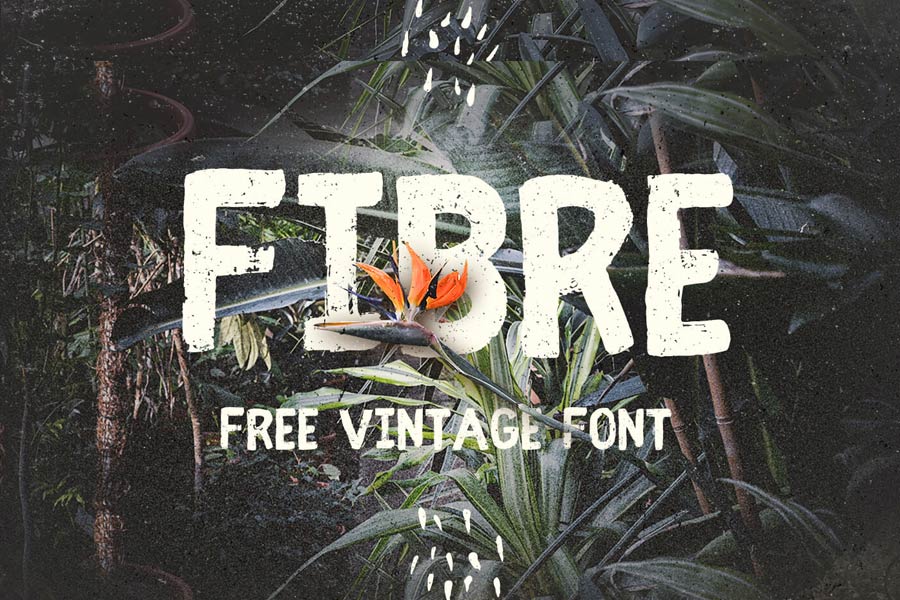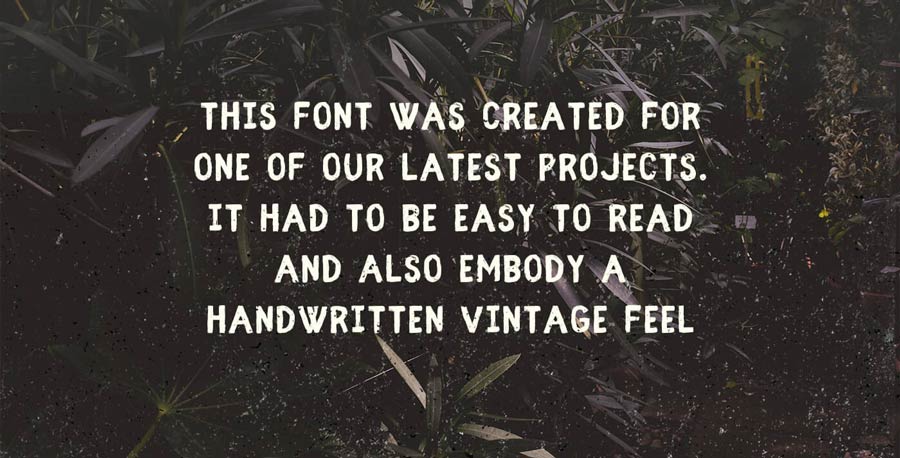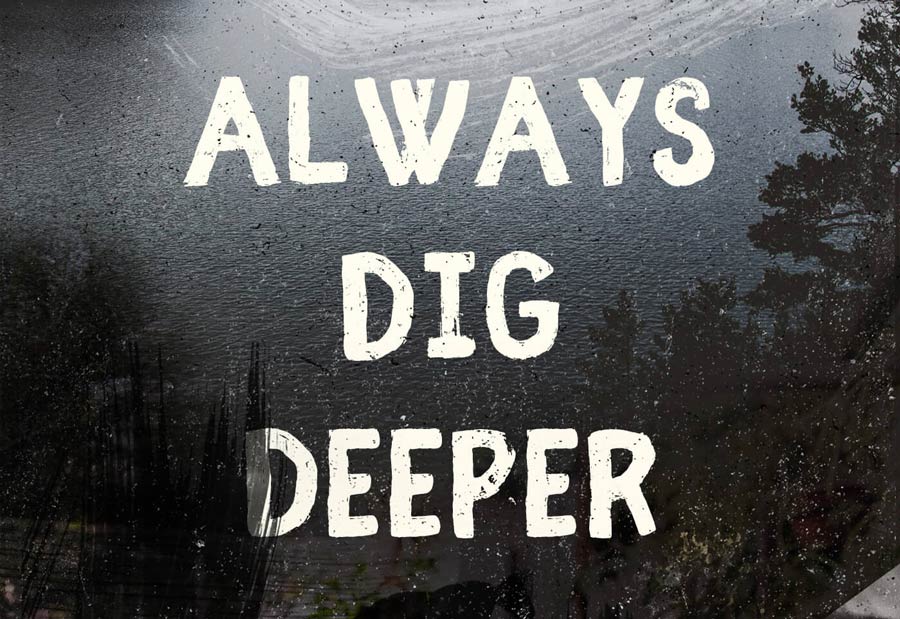
Fibre is a free handwritten font with a vintage touch. The font comes with uppercases, numerals and basic symbols. The kerning and font metrics were designed to best suit the reading experience as a all uppercase font.